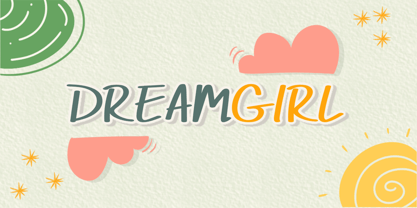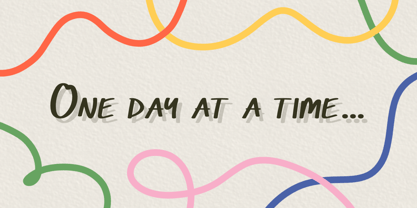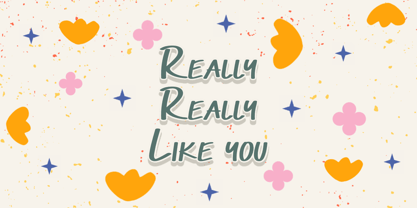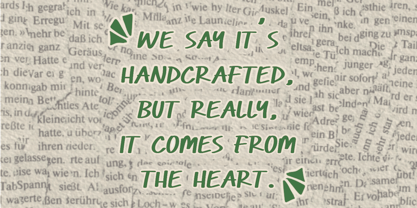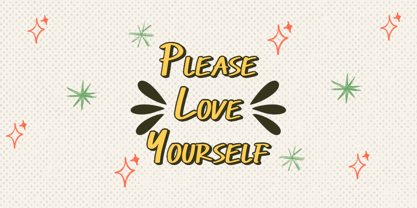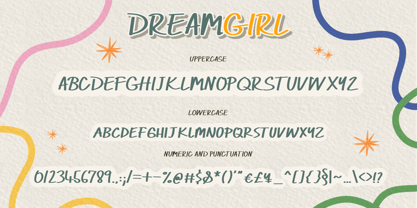
Dreamgirl
by Khaiuns
The Dreamgirl Font Family was designed by Khair Unnas and published by Khaiuns. Dreamgirl contains 1 styles. More about this family
reamgirl is a bold, all-caps typeface designed with thick, confident brushstrokes that exude strength and character. Its striking forms are perfect for creating impactful visuals, from logos to headlines, ensuring your designs stand out with authority and style.
Presented with a retro-inspired concept, Dreamgirl merges vintage charm with modern energy. Its bold and unapologetic strokes make it a versatile choice for branding, posters, packaging, and any creative project seeking a touch of nostalgia paired with a contemporary edge.
Designers: Khair Unnas
Foundry: Khaiuns